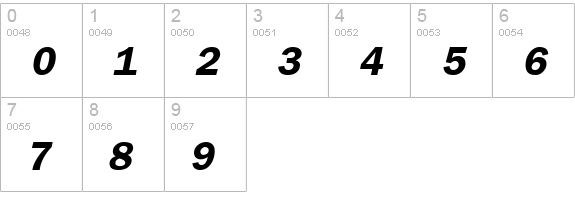
FrankfurtGothic Bold Italic Font Details
FrankfurtGothic Bold Italic is a strong, high-contrast, italic variant in the FrankfurtGothic typeface family \xE2\x80\x94 well suited to headlines, attention-grabbing titles, and strong calls-to-action.
FrankfurtGothic Bold Italic font is a stunning display typeface that exudes a sense of modernity and sophistication. Its bold and italicized design gives it a unique edge, making it perfect for adding a touch of elegance to any project. The sharp, angular letterforms of FrankfurtGothic Bold Italic demand attention and convey a sense of strength and power. What sets this font apart is that it is not only stylish and versatile but also free to download. You can easily access FrankfurtGothic Bold Italic at FontsMarket.com, where you can enhance your designs with this eye-catching typeface without any cost. Whether you're working on branding, editorial design, or any other creative project, FrankfurtGothic Bold Italic is sure to make a bold statement and leave a lasting impression. Elevate your designs with this exceptional font today!